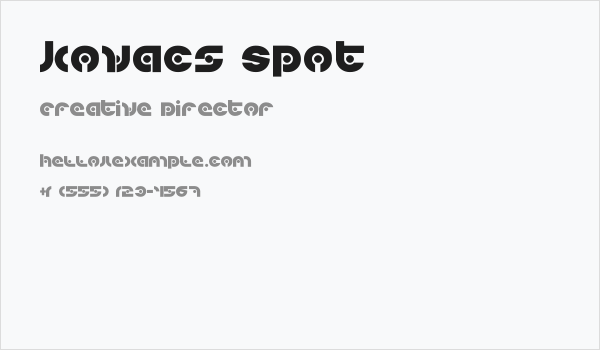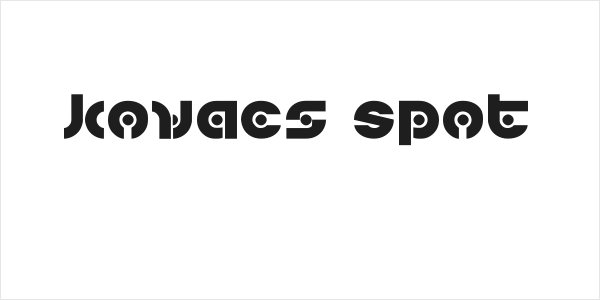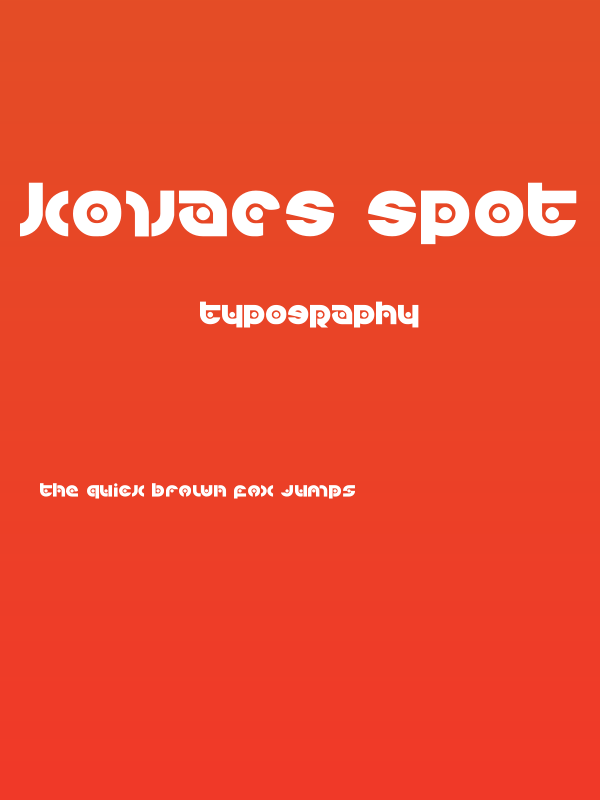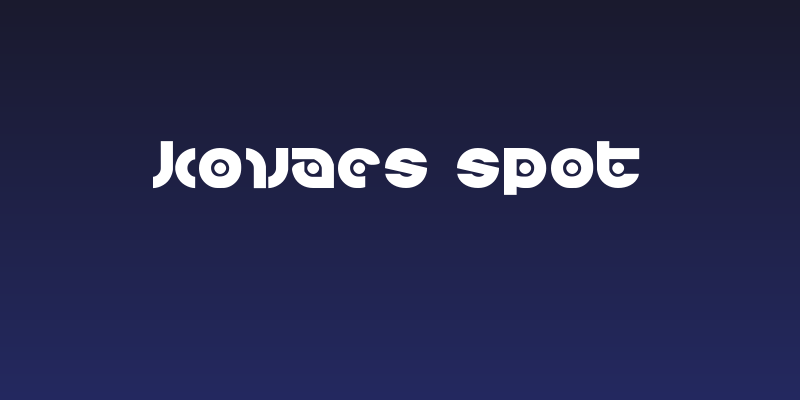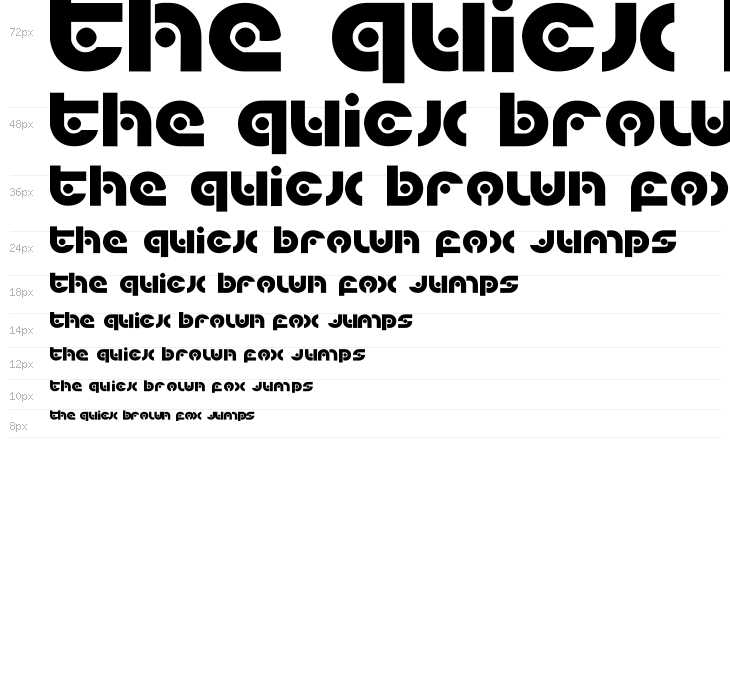
Kovacs Spot Font
Kovacs Spot Description
This font features a bold, geometric design with a futuristic and modern aesthetic. The characters are constructed with circular and semi-circular shapes, creating a unique and eye-catching appearance. The uppercase and lowercase letters maintain a consistent style, with a strong emphasis on symmetry and balance. The numbers and special characters follow the same design principles, ensuring a cohesive look across all glyphs. This font's distinct style makes it suitable for projects that require a standout visual impact.
| Proposed Projects | Ideal for branding, posters, album covers, and any project needing a bold, modern look. |